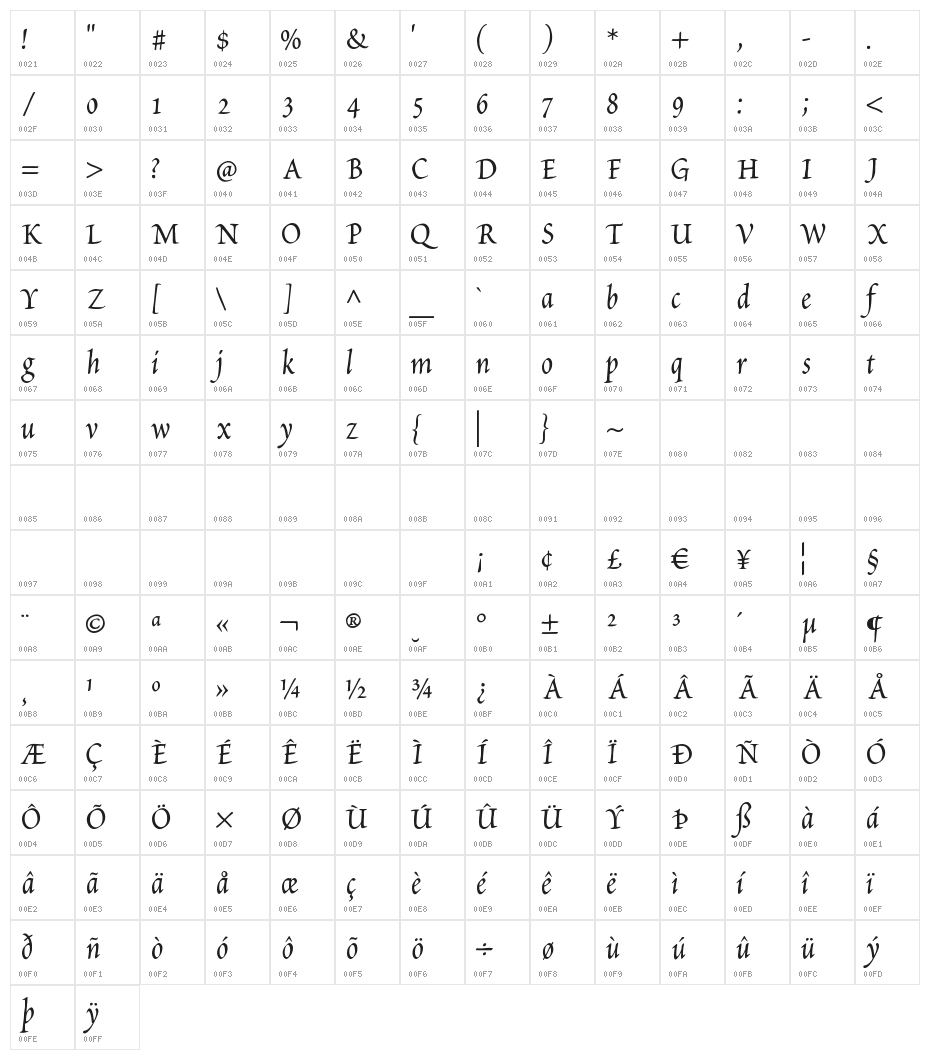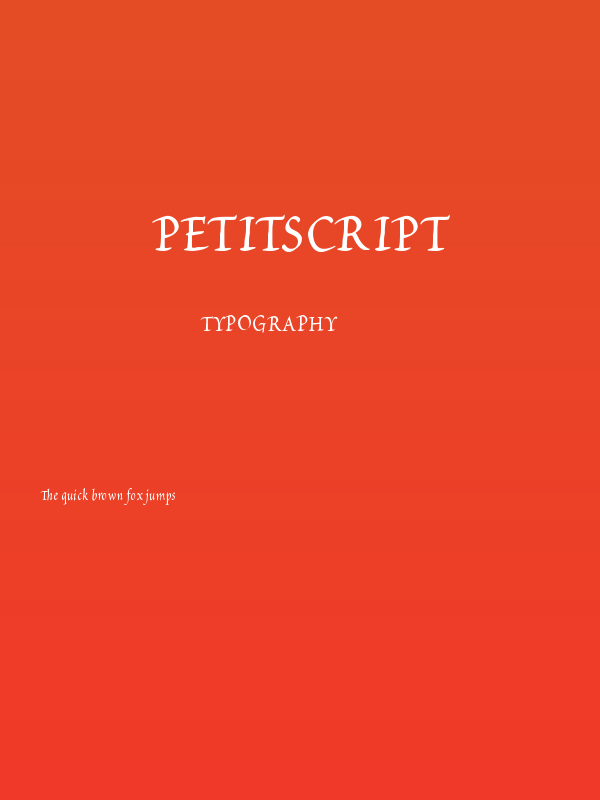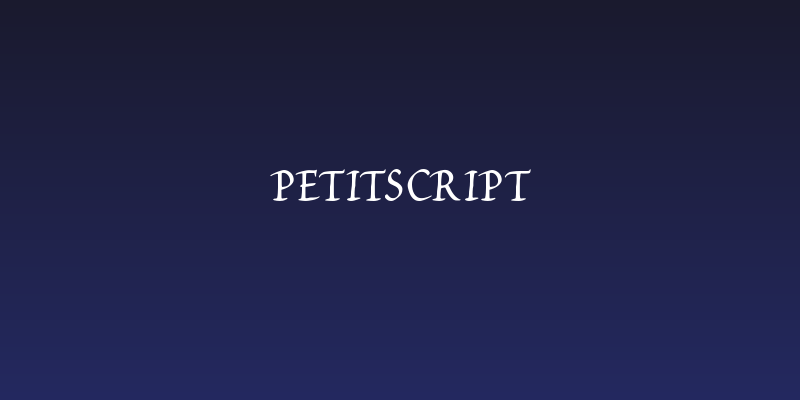
Petitscript Font
Petitscript Description
This font features a classic and elegant script style with a touch of whimsy. The uppercase letters are slightly more formal, with a gentle curve that adds a sense of movement and grace. The lowercase letters are more playful, with varying stroke widths that give them a hand-drawn appearance. The numerals are consistent with the overall style, maintaining the same fluidity and elegance. Special characters are well-integrated, matching the font's aesthetic with smooth curves and balanced proportions. This font is perfect for projects that require a personal touch while maintaining readability and sophistication.
| Proposed Projects | Ideal for wedding invitations, greeting cards, branding, and elegant packaging. |